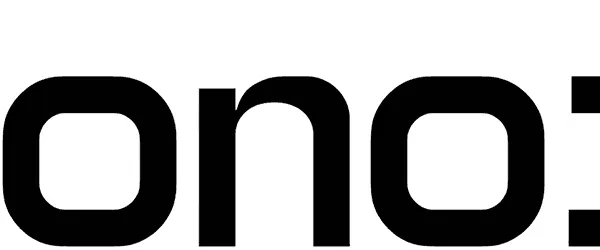
Livemono Font
All your design needs to convey a professional and salient vibe is a modest letterform, and this sans-serif font is able to provide it for you. This can be matched with varied projects, from formal to informal ones. The Livemono font is going to add a minimal and timeless mood to your projects, like a business card for a manager, or anything else.